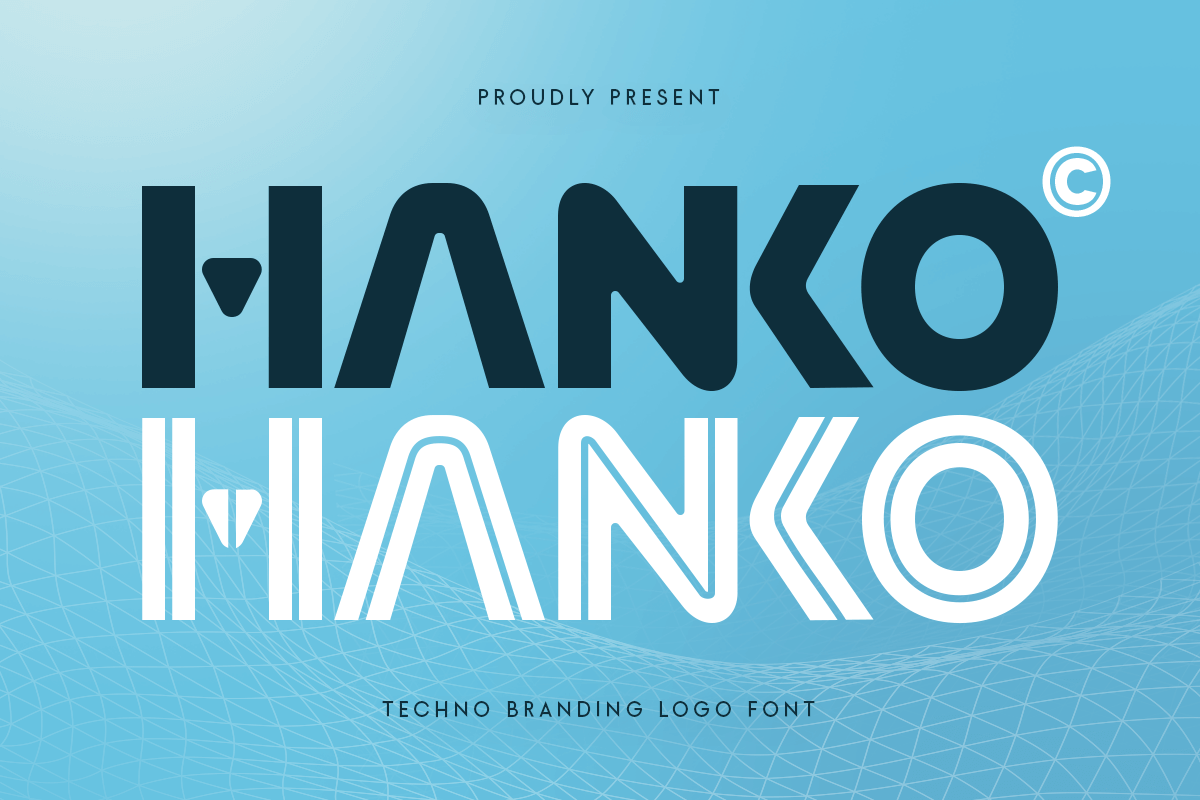
Hanko
-Techno Branding Logo Font
Hanko - Techno Branding Logo Font
HANKO is a techno branding logo font designed to express innovation, precision, and a forward-thinking digital mindset. With clean geometric forms and a sharp techno character, this typeface delivers a modern identity that feels efficient, futuristic, and brand-focused.
Built for technology-driven visuals, HANKO performs strongly in logos, brand systems, digital interfaces, product branding, and modern marketing layouts. Its structured design ensures clarity and consistency while giving brands a confident, tech-savvy personality across both digital and print applications.
Whether you are building a startup identity, a SaaS brand, or a futuristic product ecosystem, HANKO provides a strong typographic foundation that feels contemporary, professional, and future-ready.
Inspiration Behind HANKO
HANKO is inspired by modern technology branding, digital architecture, and futuristic interface design. The font is crafted to support clean logo design and branding systems for tech companies, startups, digital products, and innovative businesses. It is built to perform seamlessly across logos, UI design, websites, packaging, social media, presentations, and editorial headlines—where a sharp, modern techno tone is essential.
HANKO – Font Features
• Techno-inspired letterforms with clean geometric structure
• Ready with Regular and Inline version for Your design needs
• Optimized for logo design and modern branding systems
• Strong readability for headlines and digital applications
• OpenType features for professional typography control
• Tech branding and futuristic logo design
• Startups, SaaS, AI, and digital products
• UI/UX design and website headers
• Corporate technology branding and presentations
• Social media, digital ads, and modern campaigns
Build a future-focused identity with HANKO—crafted for sharp techno branding and modern digital impact. ⚡🤖